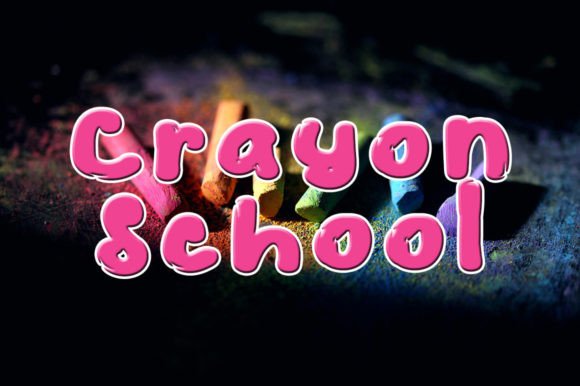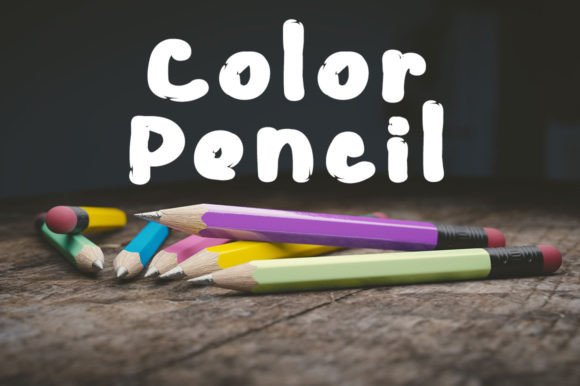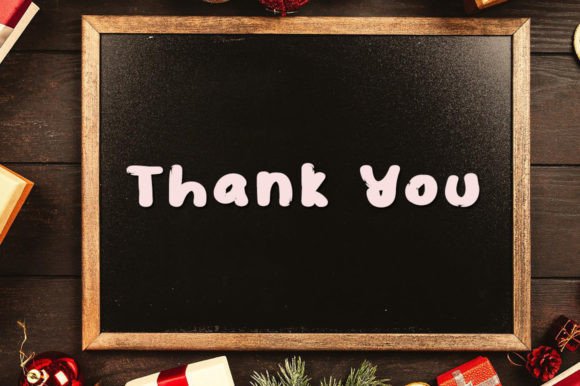
Discover the Joy of Ballpoint Font
As designers, we’ve all been there – staring at a blank page, trying to conjure up the perfect idea. It’s that moment when everything clicks, and the words start flowing. For me, it’s when I’m working on a new project, and I stumble upon the perfect font. It’s like a breath of fresh air, and suddenly, the design starts to come together.
Enter Ballpoint Font, a beautiful and sweet display font that’s sure to bring a touch of elegance to your designs. Whether you’re working on a formal project or something more casual, Ballpoint Font is the perfect addition to elevate your work. Its clean and fresh design makes it a valuable asset for any designer looking to add a bit of joy to their projects.
Key Features of Ballpoint Font
- Unique Characteristics: Ballpoint Font features a unique, handwritten style with subtle imperfections, giving it a personal touch
Designer Review: Ballpoint Font
Overall, I’d say Ballpoint Font is a decent addition to any designer’s toolkit. ✨ Its clean and modern aesthetic makes it perfect for digital applications, and the font’s legibility is top-notch.
One of the standout features of Ballpoint Font is its versatility. ✨ It comes in a range of weights, from light to bold, making it easy to use in various contexts. The font also has a great x-height, which helps with readability on digital screens.
- Modern and clean aesthetic
- Excellent legibility
- Range of weights for versatility
- Great x-height for readability on digital screens
However, there are some limitations to consider. ⚠️ The font’s design is somewhat generic, which may make it difficult to stand out in a crowded market. Additionally, the font’s italic and bold styles could be improved upon.
- Generic design may lack uniqueness
- Italic and bold styles could be improved
Overall, Ballpoint Font is a solid choice for designers looking for a modern, legible font. While it may not be the most exciting or unique option, it gets the job done and is easy to work with.
Use the Ballpoint Font to create a nostalgic or retro look in your presentations and documents.
The Ballpoint Font is perfect for:
Creating retro-style posters and flyers.
Designing nostalgic-themed invitations and cards.
Adding a vintage touch to presentations and documents.
Creating a unique and eye-catching look for branding and marketing materials.
Alternatives to Ballpoint Font for Designers
1. Comic Sans
Comic Sans is a casual, cursive font that is often used in informal settings, such as blog posts, social media, and children’s materials. It is known for its playful and approachable feel, making it suitable for designs that require a friendly tone.
Comparison to Ballpoint Font: While both fonts have a casual feel, Comic Sans is more cursive and playful, whereas Ballpoint Font is more straightforward and sans-serif. Ballpoint Font is more versatile and can be used in a wider range of designs, whereas Comic Sans is best suited for informal settings.
Great Vibes is a modern, script font that is often used in designs that require a touch of elegance and sophistication. It is known for its flowing lines and dynamic feel, making it suitable for designs that require a sense of movement and energy.
Comparison to Ballpoint Font: Great Vibes is more ornate and decorative than Ballpoint Font, making it more suitable for designs that require a touch of luxury and refinement. Ballpoint Font is more straightforward and easy to read, whereas Great Vibes is more visually striking and attention-grabbing.
Pacifico is a modern, sans-serif font that is often used in designs that require a sense of calmness and serenity. It is known for its clean lines and simple feel, making it suitable for designs that require a sense of clarity and focus.
Comparison to Ballpoint Font: Pacifico is more modern and sleek than Ballpoint Font, making it more suitable for designs that require a sense of sophistication and elegance. Ballpoint Font is more versatile and can be used in a wider range of designs, whereas Pacifico is best